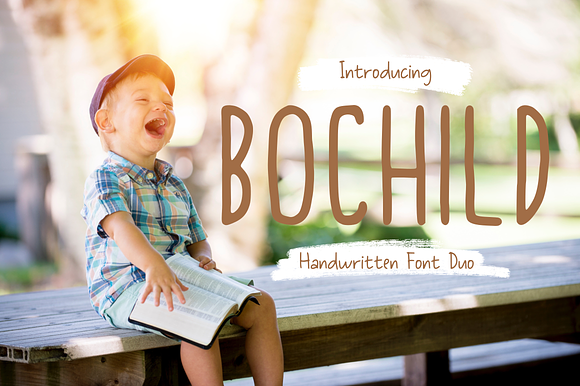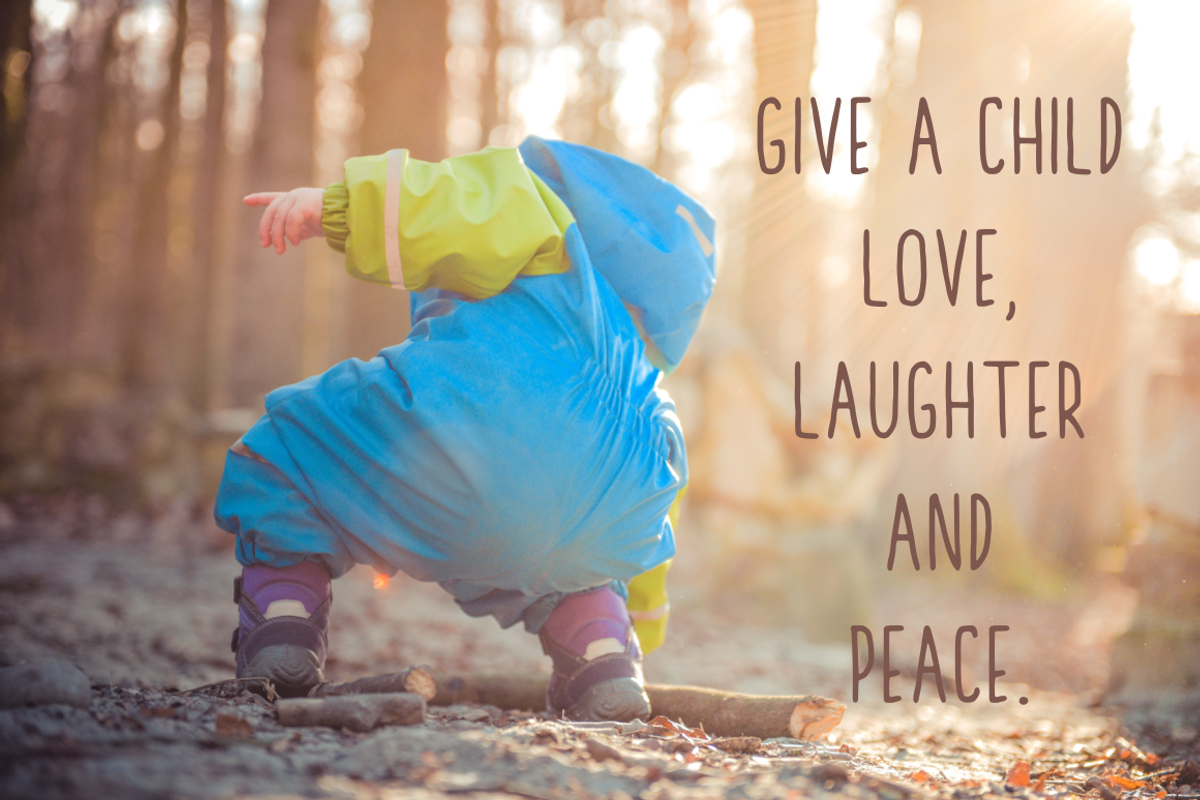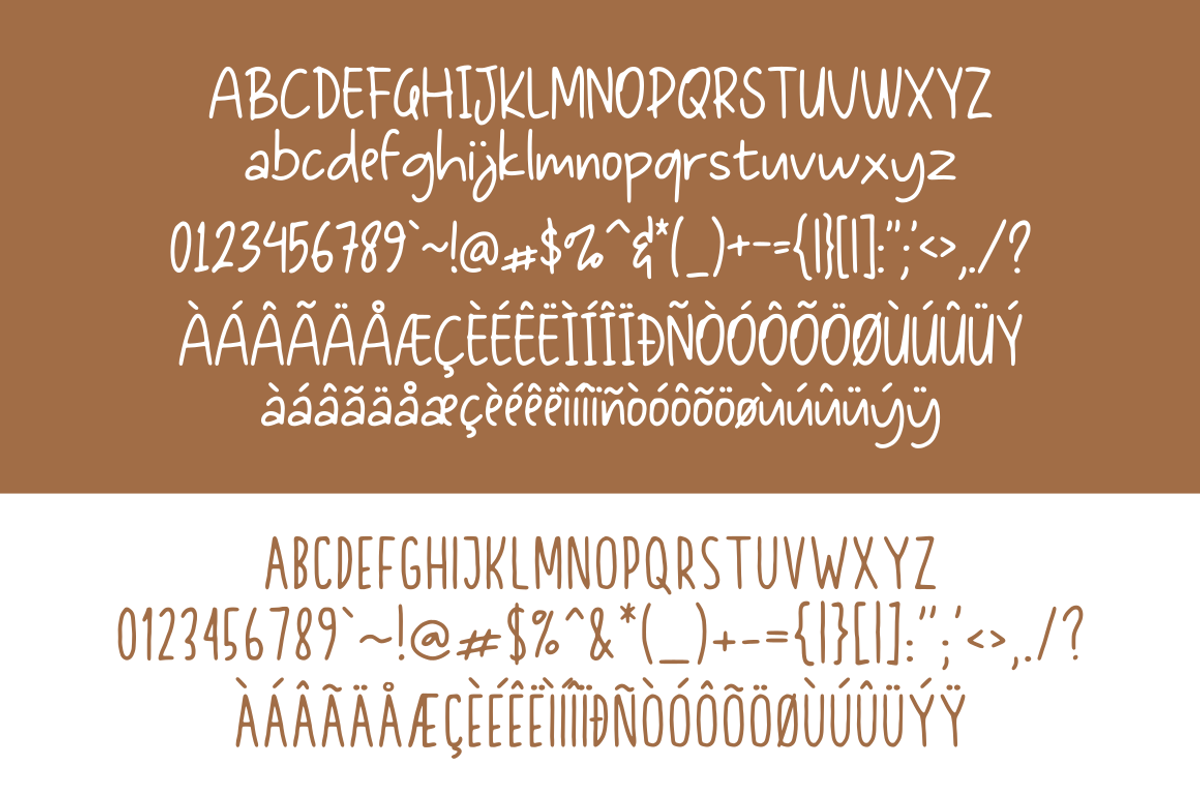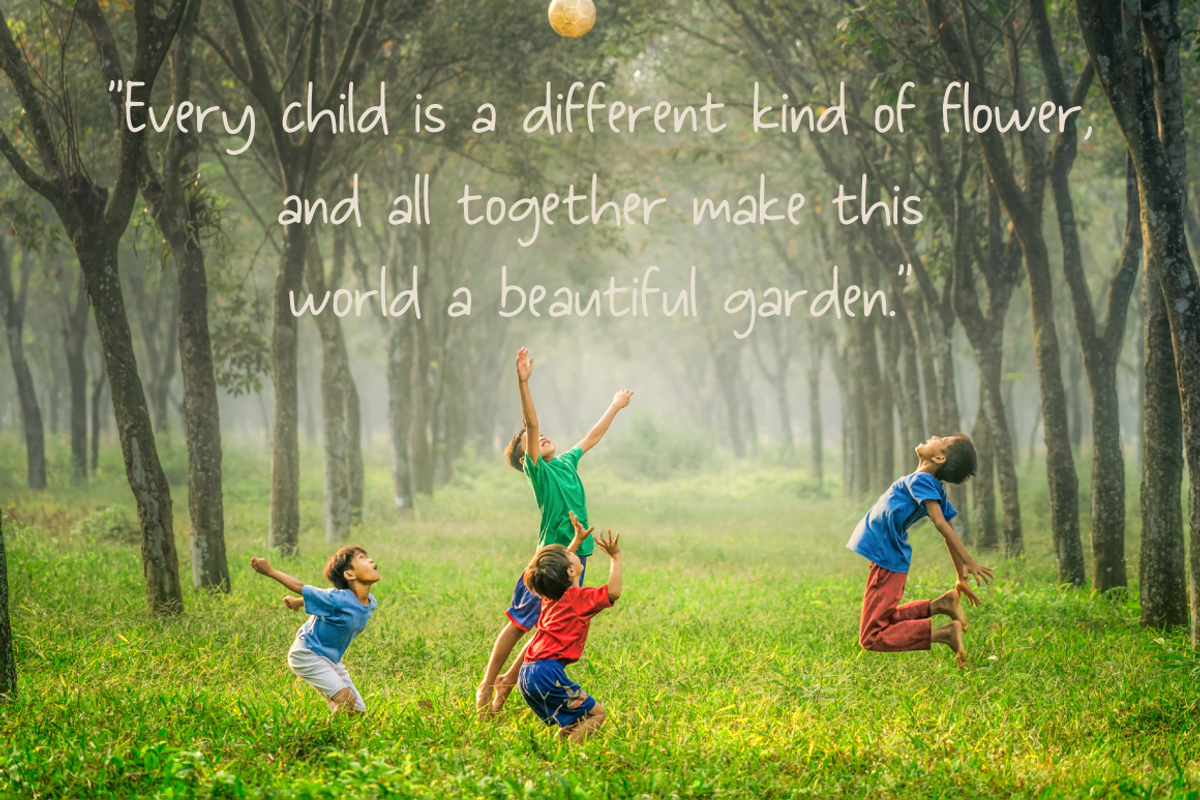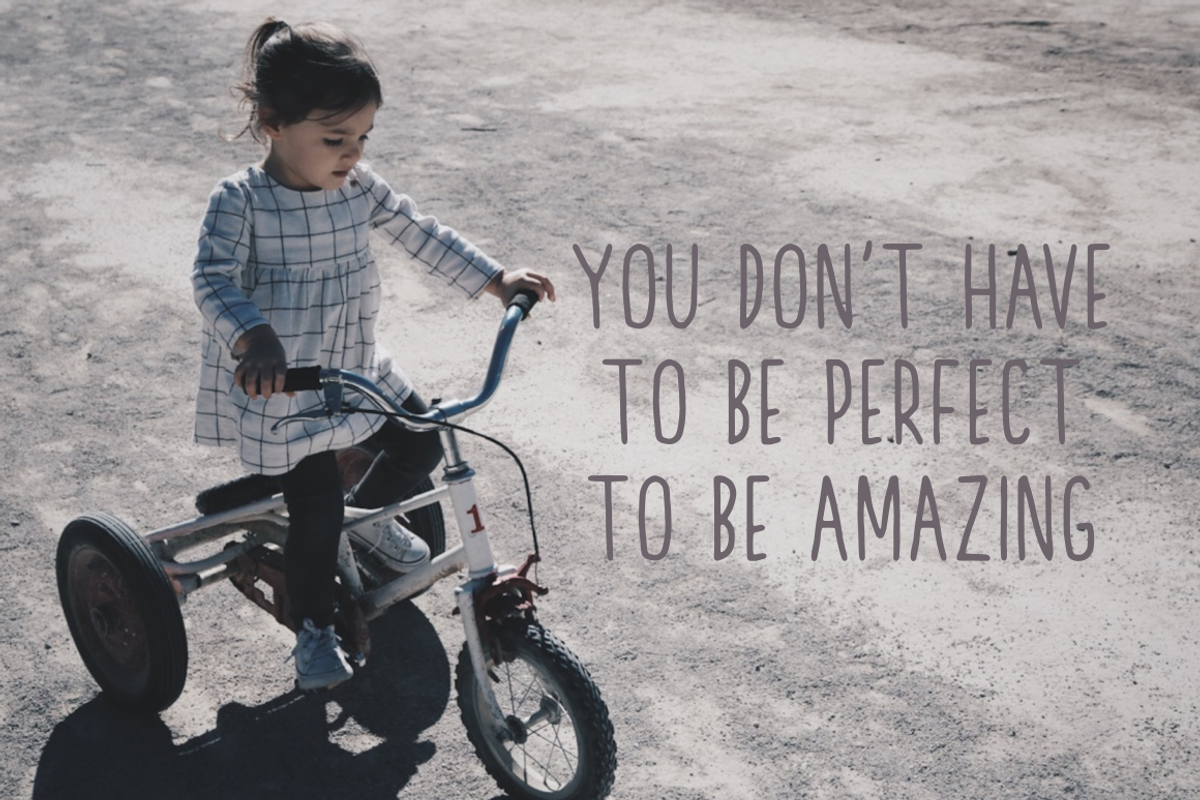
Bochild | Font Duo
Bochild Font Duo is two sweet and simple handwriting. Bochild Font Duo can be used for logos, poster and more.
Bochild | Font Duo by zuzulgo fits naturally into Branding, posters, packaging, typography.